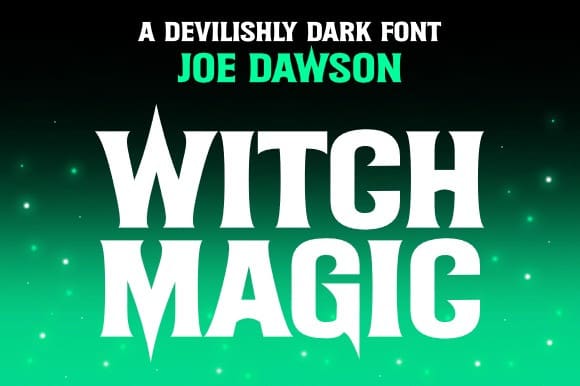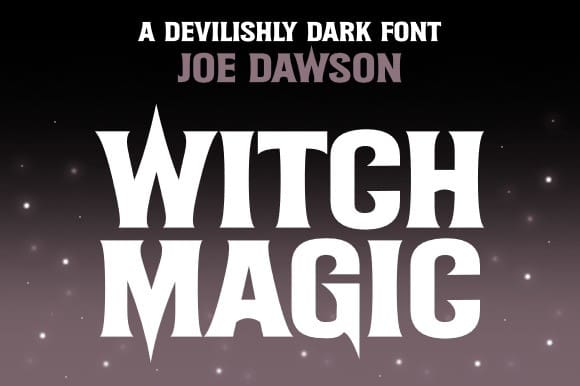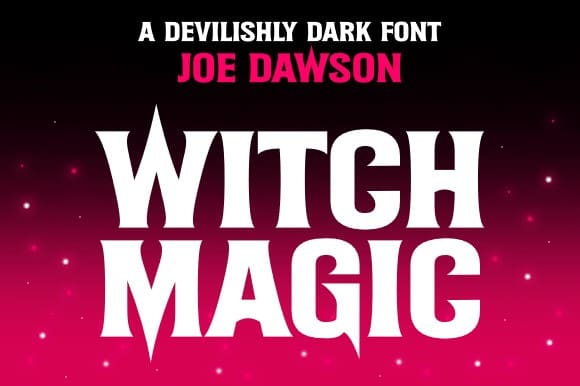
Witch Magic Font
Witch Magic Font, with its spellbinding curves and mystic allure, this typeface is your gateway to crafting bewitching invitations, posters and the kind of mystical branding that will most certainly conjure up the kind of magic you are looking for in every project